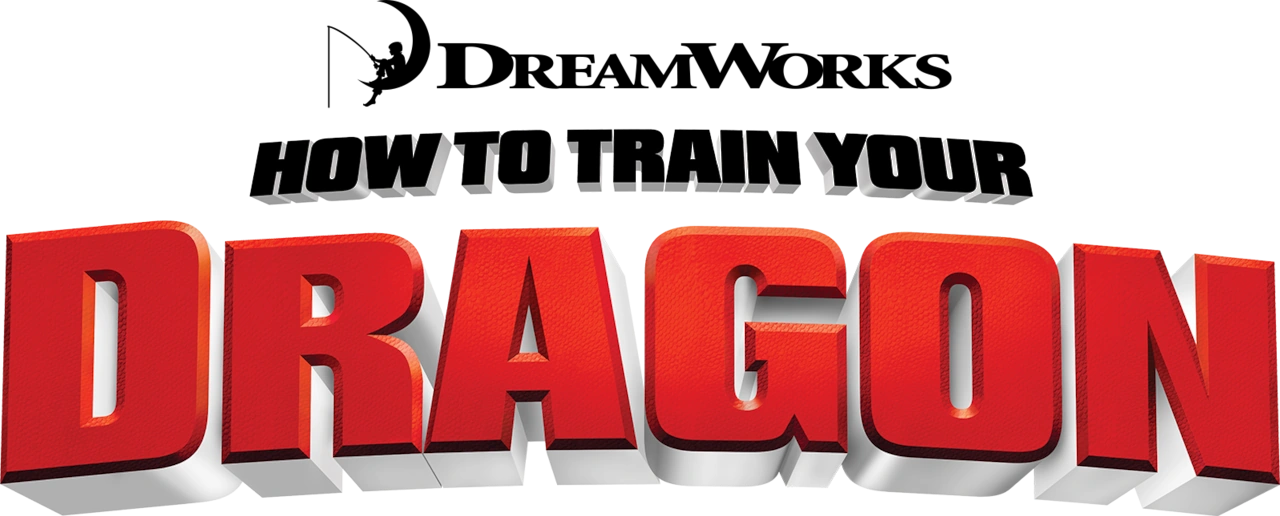
How To Train Your Dragon Font . Download and use the font inspired by the title of the 2010 dreamworks film. Create cool graphics for how to train your dragon font with this online tool. Learn about the font used in the poster of the 2014 animated film how to train your dragon 2. Try our text generator and create cool graphics for dreamworks font, then you can save the font image to your pc, mac, linux, ios and android. Edited on sep 17, 2023 at 20:58 by pedroduque14141 #3. Learn about the fonts used in the movie titles of how to train your dragon and its sequel. Enter the thrilling world of dragon adventure with our specially designed font, capturing the essence of epic adventures and heartwarming tales of a brave rider and his dragon. Choose from compacta, friz quadrata and other fonts used in the movie. Learn how to install and preview the font with a character map and a snapshot feature. Compacta is the font name and. Create a text effect how to train your dragon calligraphy generator with our online custom font generator. Compacta is the main font for the first film, while friz quadrata is used for the second film.
Enter the thrilling world of dragon adventure with our specially designed font, capturing the essence of epic adventures and heartwarming tales of a brave rider and his dragon. Download and use the font inspired by the title of the 2010 dreamworks film. Compacta is the main font for the first film, while friz quadrata is used for the second film. Edited on sep 17, 2023 at 20:58 by pedroduque14141 #3. Learn how to install and preview the font with a character map and a snapshot feature. Try our text generator and create cool graphics for dreamworks font, then you can save the font image to your pc, mac, linux, ios and android. Learn about the font used in the poster of the 2014 animated film how to train your dragon 2. Create cool graphics for how to train your dragon font with this online tool. Compacta is the font name and. Learn about the fonts used in the movie titles of how to train your dragon and its sequel.
How To Train Your Dragon Font Create a text effect how to train your dragon calligraphy generator with our online custom font generator. Learn how to install and preview the font with a character map and a snapshot feature. Choose from compacta, friz quadrata and other fonts used in the movie. Create cool graphics for how to train your dragon font with this online tool. Enter the thrilling world of dragon adventure with our specially designed font, capturing the essence of epic adventures and heartwarming tales of a brave rider and his dragon. Download and use the font inspired by the title of the 2010 dreamworks film. Edited on sep 17, 2023 at 20:58 by pedroduque14141 #3. Learn about the font used in the poster of the 2014 animated film how to train your dragon 2. Create a text effect how to train your dragon calligraphy generator with our online custom font generator. Compacta is the font name and. Try our text generator and create cool graphics for dreamworks font, then you can save the font image to your pc, mac, linux, ios and android. Compacta is the main font for the first film, while friz quadrata is used for the second film. Learn about the fonts used in the movie titles of how to train your dragon and its sequel.
How to Train Your Dragon How To Train Your Dragon Font Compacta is the main font for the first film, while friz quadrata is used for the second film. Learn about the fonts used in the movie titles of how to train your dragon and its sequel. Enter the thrilling world of dragon adventure with our specially designed font, capturing the essence of epic adventures and heartwarming tales of a brave. How To Train Your Dragon Font.
How To Train Your Dragon Alphabet 26 Letters Dragon Numbers Etsy How To Train Your Dragon Font Learn how to install and preview the font with a character map and a snapshot feature. Enter the thrilling world of dragon adventure with our specially designed font, capturing the essence of epic adventures and heartwarming tales of a brave rider and his dragon. Choose from compacta, friz quadrata and other fonts used in the movie. Compacta is the main. How To Train Your Dragon Font.
How To Train Your Dragon 2 Official Logo How to Train Your Dragon How To Train Your Dragon Font Learn about the font used in the poster of the 2014 animated film how to train your dragon 2. Learn about the fonts used in the movie titles of how to train your dragon and its sequel. Try our text generator and create cool graphics for dreamworks font, then you can save the font image to your pc, mac, linux,. How To Train Your Dragon Font.
How to Train Your Dragon (game) Logopedia Fandom How To Train Your Dragon Font Enter the thrilling world of dragon adventure with our specially designed font, capturing the essence of epic adventures and heartwarming tales of a brave rider and his dragon. Compacta is the font name and. Edited on sep 17, 2023 at 20:58 by pedroduque14141 #3. Choose from compacta, friz quadrata and other fonts used in the movie. Learn about the fonts. How To Train Your Dragon Font.
How To Train Your Dragon Font Choose from compacta, friz quadrata and other fonts used in the movie. Enter the thrilling world of dragon adventure with our specially designed font, capturing the essence of epic adventures and heartwarming tales of a brave rider and his dragon. Create a text effect how to train your dragon calligraphy generator with our online custom font generator. Create cool graphics. How To Train Your Dragon Font.